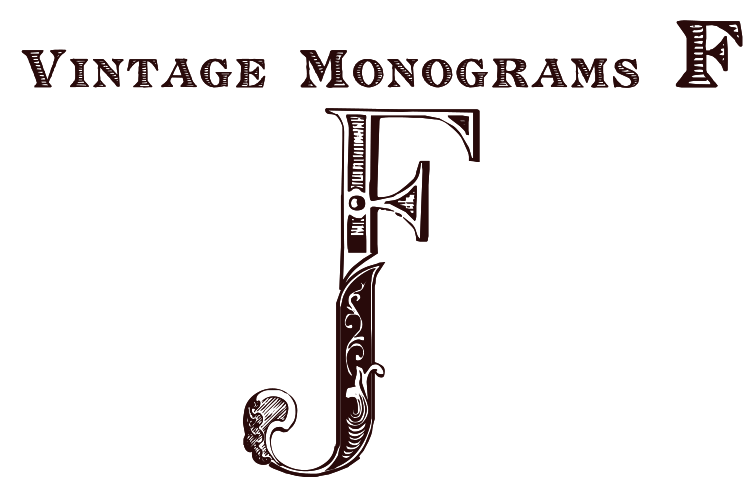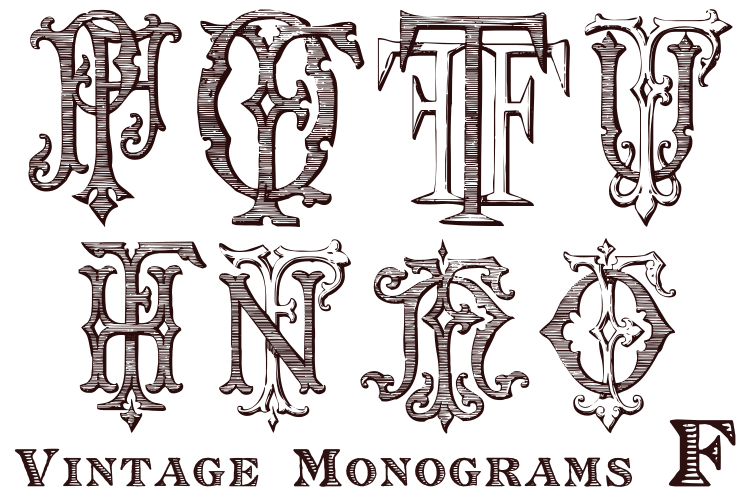
About Monocracy Vintage
A Monogram is a lettering character made up of the main letters of a name and sometimes all of them. It is a kind of design which dates from the earliest times of our history. It is a distinctive mark that everyone could have themselves, to apply to…